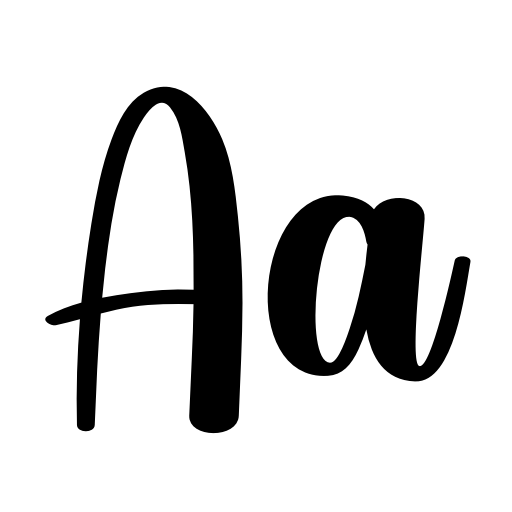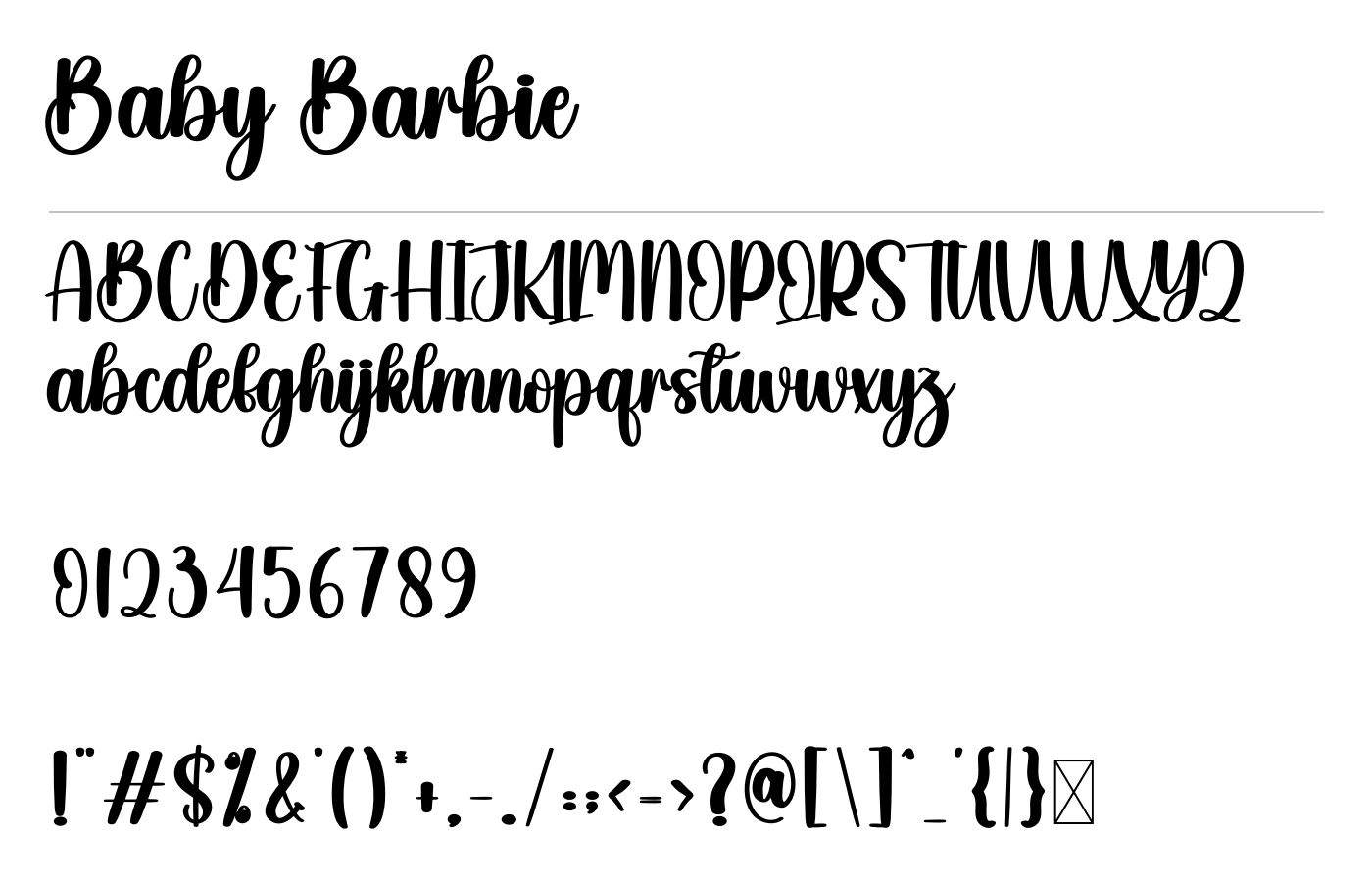
Baby Barbie Font is a lively and playful script typeface featuring tall, narrow letterforms with smooth, rounded strokes and charming loops that give it a friendly and youthful vibe. Its whimsical style with a strong handwritten feel makes it ideal for fun, casual branding or creative projects aimed at a youthful audience, such as invitations, posters, and children's products. This font works best where a warm, approachable personality is desired, bringing a touch of cheerfulness and charm to the design.
Baby Barbie Font
About Baby Barbie Font
| Font family | Baby Barbie Font |